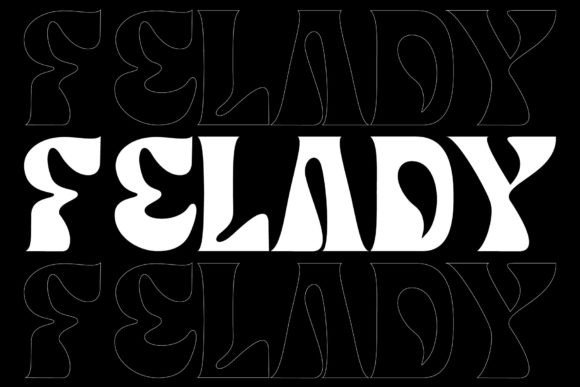
Introducing Felady Font: Elevate Your Designs with a Touch of Retro Sophistication
Are you on the hunt for a font that adds a dash of elegance and charm to your designs? Look no further than Felady Font, a stylish and sophisticated display font that’s perfect for crafters and designers alike. With its uniquely shaped characters and retro vibe, Felady is sure to make your designs stand out from the crowd.
The Charm of Felady Font
Felady Font boasts a charming, retro aesthetic that’s reminiscent of a bygone era. Its characters are carefully crafted to exude a sense of sophistication and glamour, making it an ideal choice for designers who want to add a touch of luxury to their work. Whether you’re creating a logo, a poster, or a social media graphic, Felady Font is sure to impress.
What Makes Felady Font Special?
So, what sets Felady Font apart from other display fonts on the market? Here are just a few features that make it a standout:
- Uniquely Shaped Characters: Felady Font features characters that are uniquely shaped and crafted to create a distinctive look that’s both stylish and sophisticated.
- Retro Vibe: With its retro aesthetic, Felady Font is perfect for designers who want to add a touch of nostalgia to their designs.
- High Versatility: Felady Font is highly versatile and can be used for a wide range of design projects, from logos and posters to social media graphics and more.
- Ease of Use: Felady Font is easy to use and can be easily integrated into your design workflow.
Felady Font is a perfect choice for designers and crafters who want to create stunning designs that showcase their creativity. Whether you’re a professional designer or a hobbyist, Felady Font is sure to inspire you to create something truly special.
Tips for Using Felady Font
Here are a few tips for using Felady Font to get the most out of this amazing display font:
- Pair it with a Simple Font: For maximum impact, pair Felady Font with a simple font to create a striking contrast.
- Experiment with Colors: Felady Font looks great in a variety of colors, so don’t be afraid to experiment and find the perfect hue for your design.
- Use it for Headlines: Felady Font is perfect for headlines and titles, where its stylish and sophisticated aesthetic can really shine.
Get Creative with Felady Font
With Felady Font, the creative possibilities are endless. Here are just a few ideas to get you started:
- Create a Stunning Logo: Use Felady Font to create a logo that’s both stylish and memorable.
- Design a Beautiful Poster: Felady Font is perfect for creating eye-catching posters that showcase your design skills.
- Make a Statement on Social Media: Use Felady Font to create social media graphics that stand out from the crowd.
In conclusion, Felady Font is a stylish and sophisticated display font that’s perfect for designers and crafters who want to add a touch of retro sophistication to their designs. With its uniquely shaped characters, retro vibe, and high versatility, Felady Font is sure to become a go-to font in your design arsenal. So why wait? Download Felady Font today and start creating stunning designs that showcase your creativity!